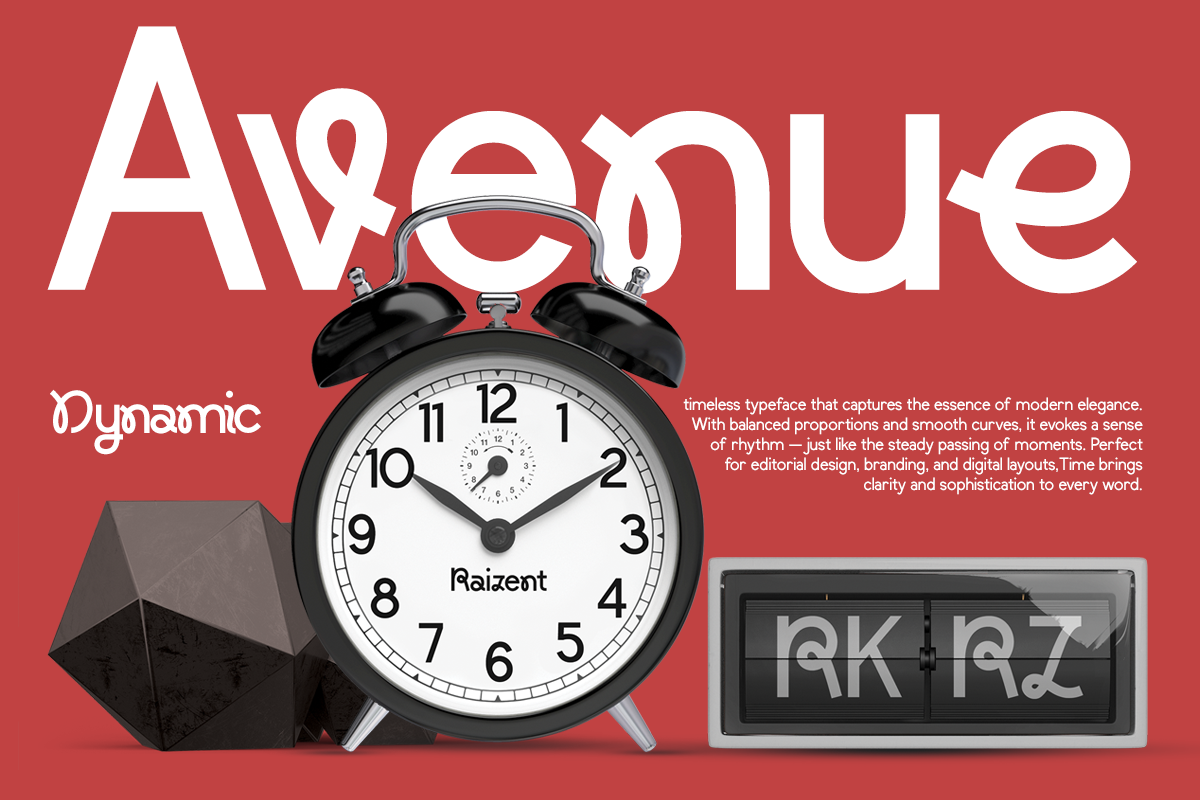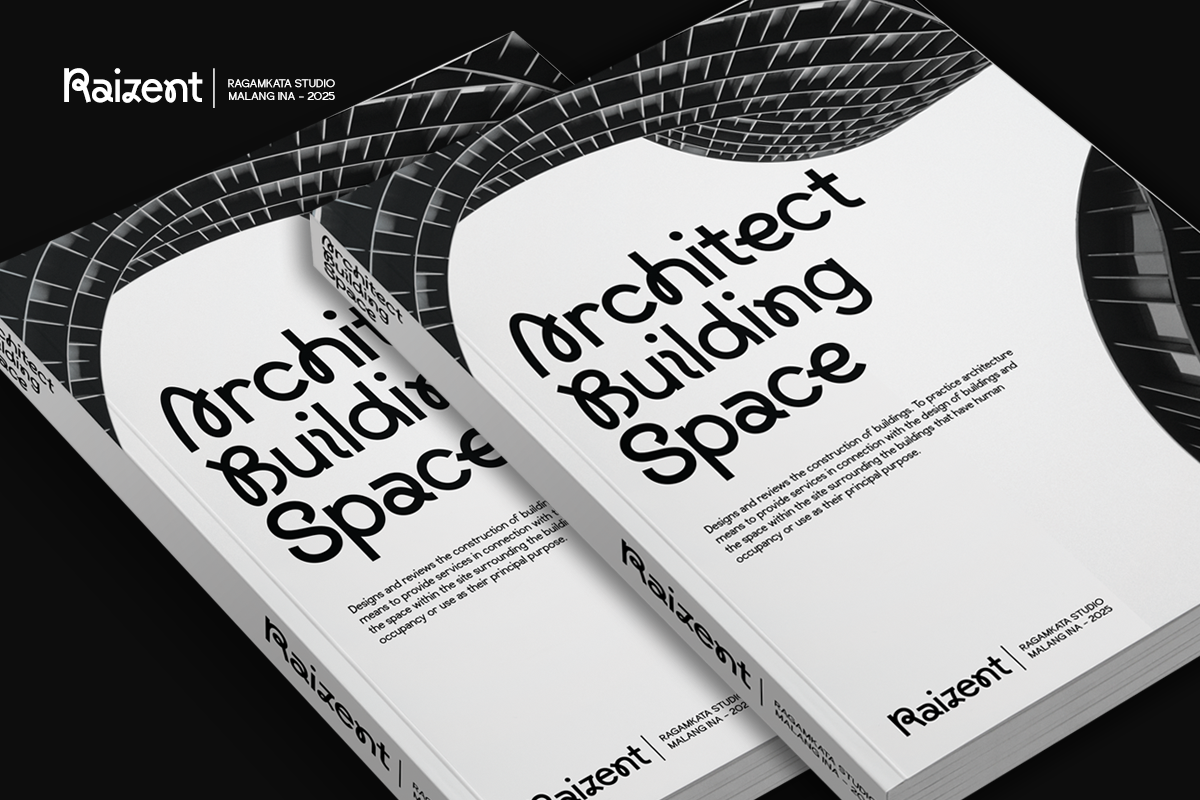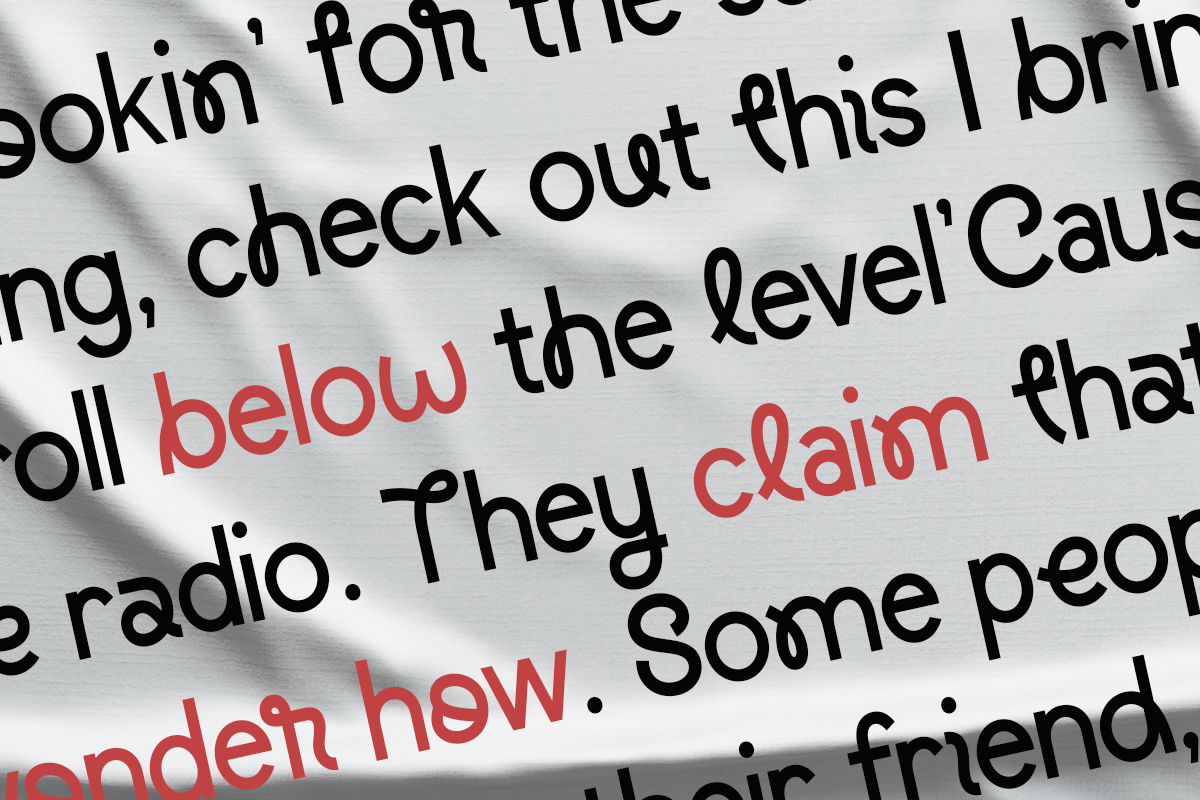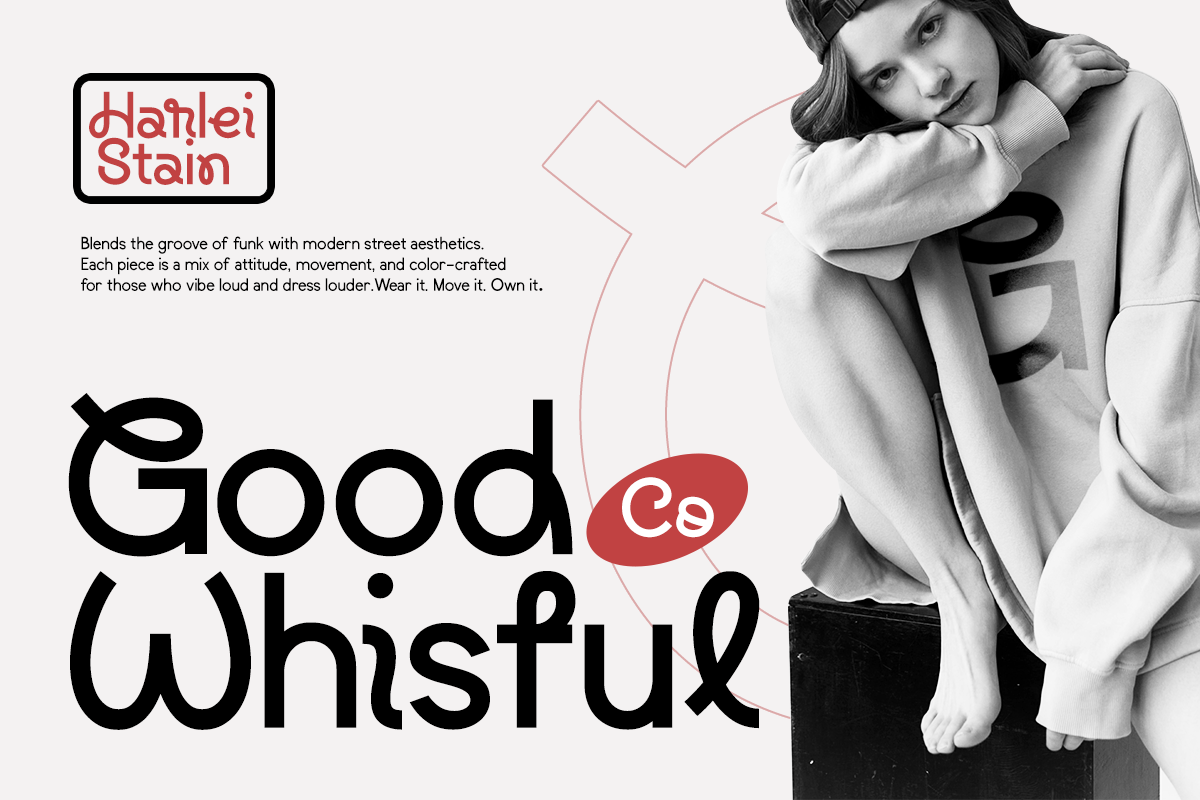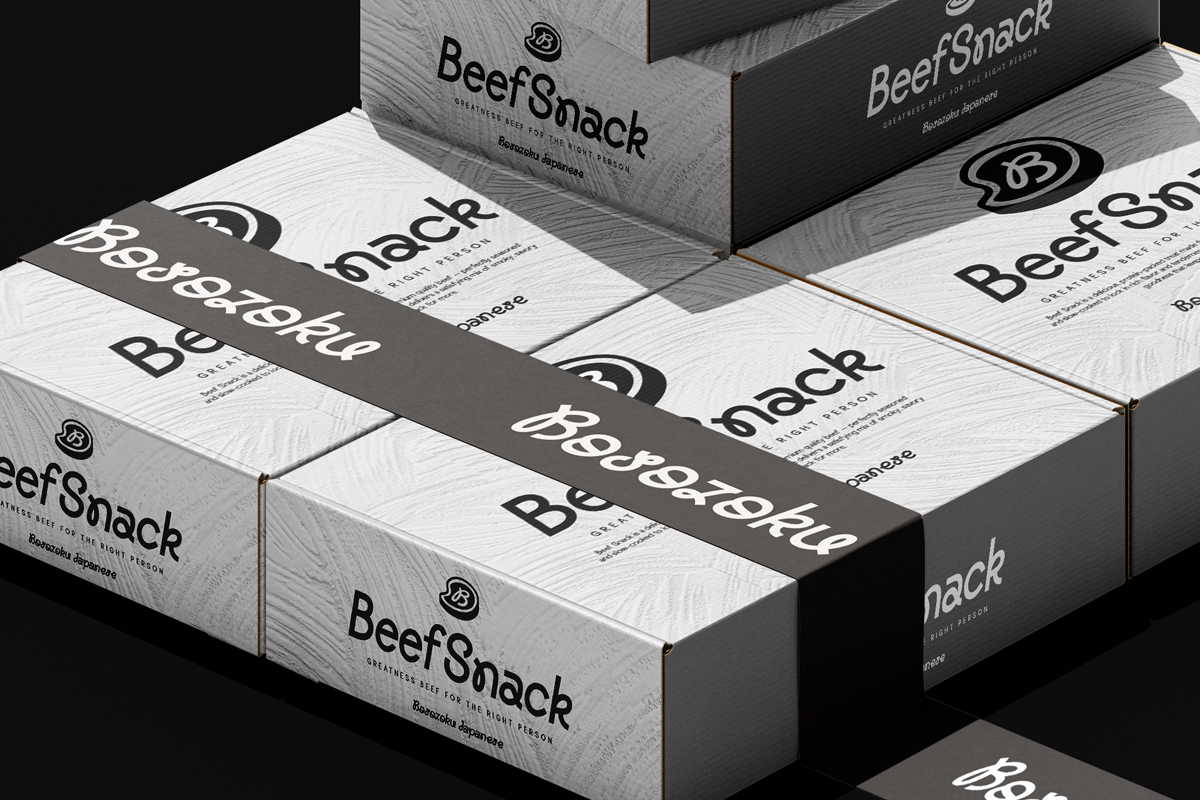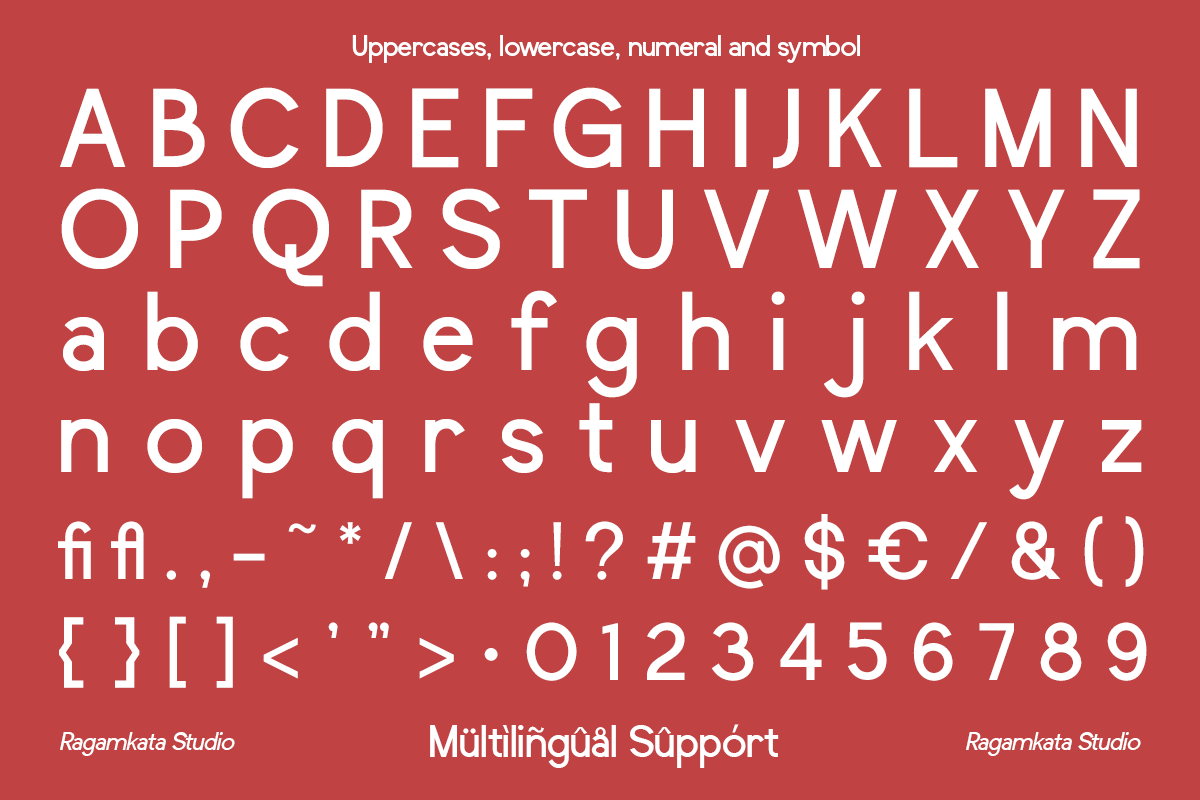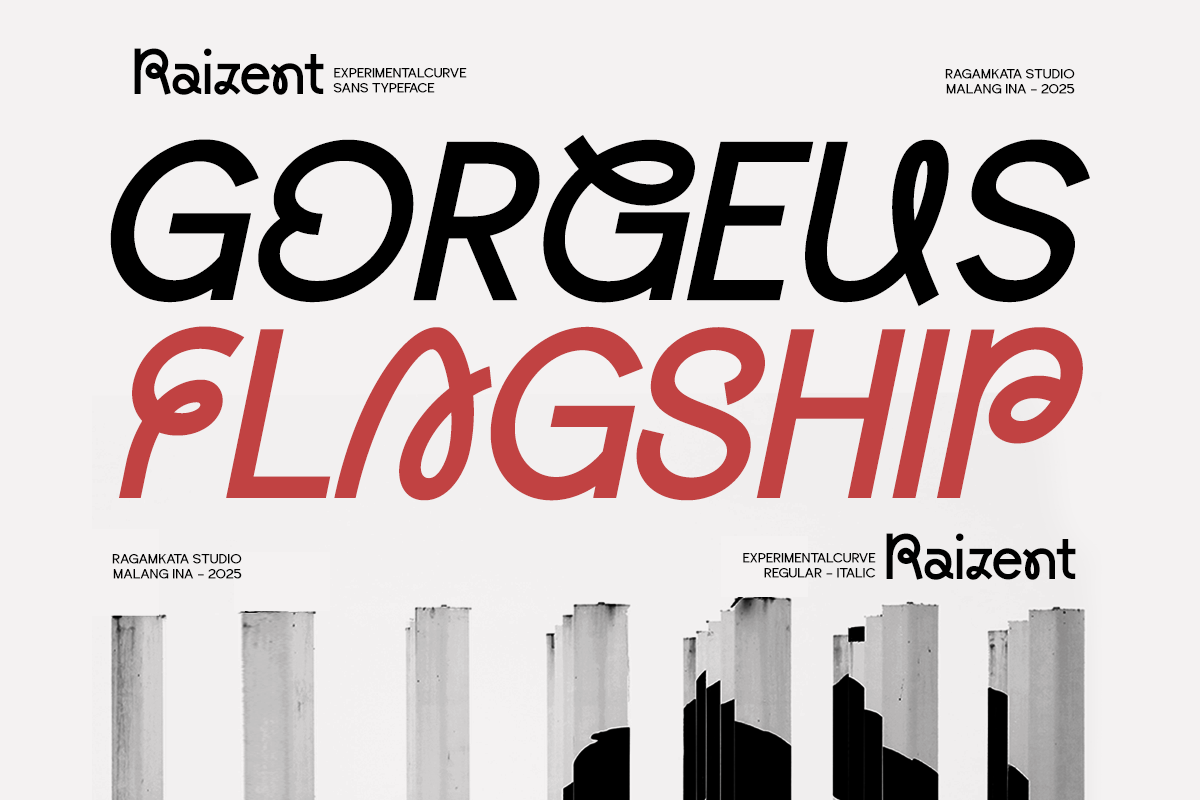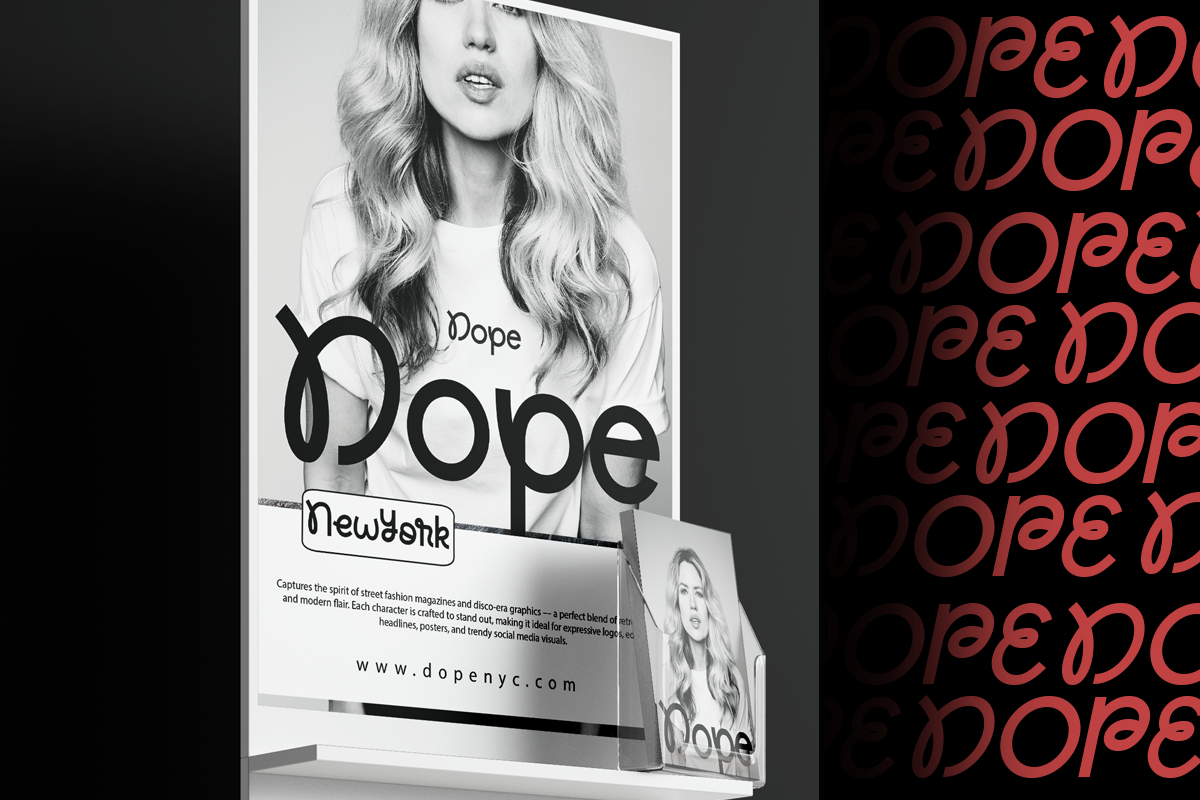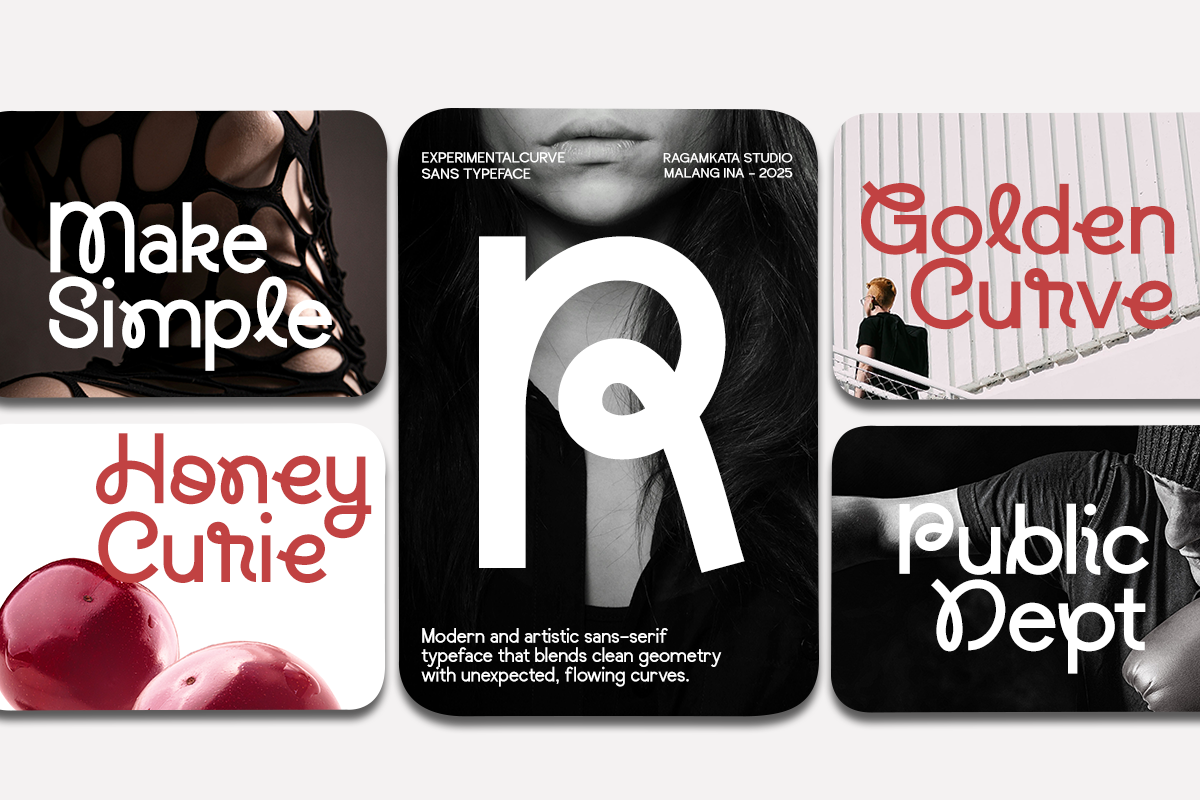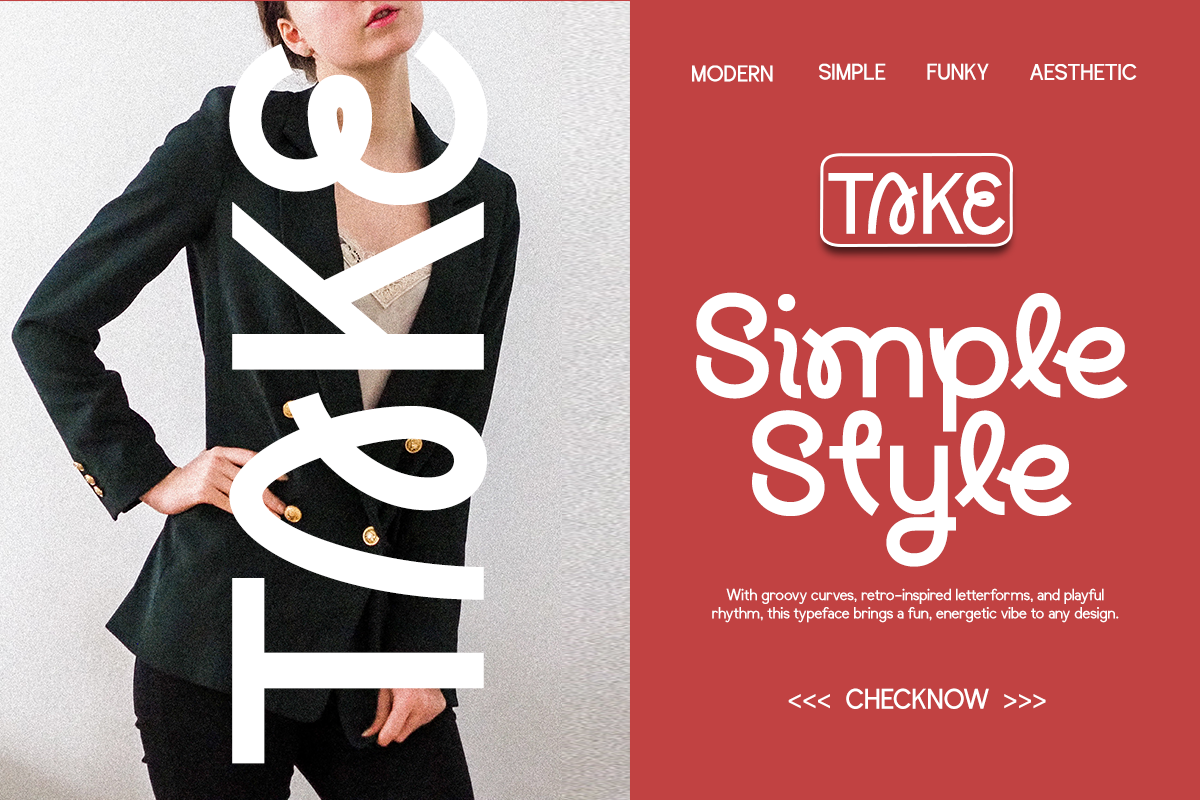
Raizent - Experimental Sans Font
Raizent is an experimental curve sans typeface that blends geometric structure with playful curves. Designed for modern branding, creative posters, and digital typography, Raizent offers a bold, unique identity in both regular and italic styles. Perfect for designers seeking innovation, style, and visual rhythm in every letterform.